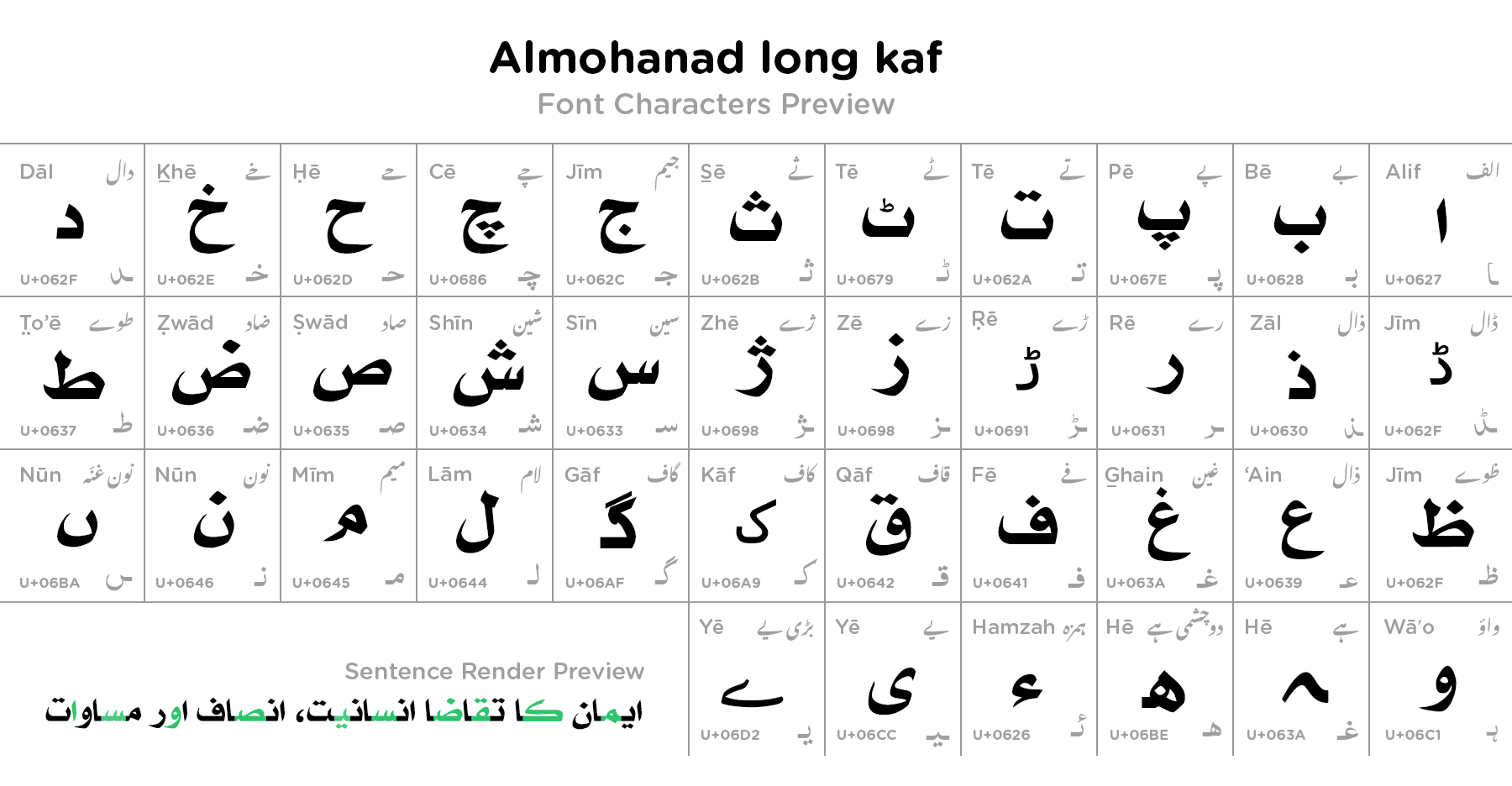
Almohanad Long Kaf Regular is an Arabic font family designed by FONTRIX. It was licensed in 2012 by Samsung Electronics Co., Ltd. Comprising an extensive charset of 10410 symbols, characters, and punctuation, this font has a glyph count of 10996. This enormous charset suggests its compatibility with numerous languages, including Arabic, Unified Canadian Aboriginal, Japanese, Runic Ethiopic, Buginese BuhidTai, Urdu, and many others. It is a wide, bold, and decorative font with sharp angles and varying thicknesses. Almohanad Long Kaf Regular is a calligraphic font suggested by its bold and flowing nature. It can be used in various applications, including logos, attractive headlines in newspapers, book covers, advertising, and more. As it is only available in single weight, it can’t be used widely for literary writing purposes, limiting its overall usability. Moreover, it is compatible with modern Unicode standards, including Basic Latin, Hebrew, Coptic, Arabic, Thai, and more.